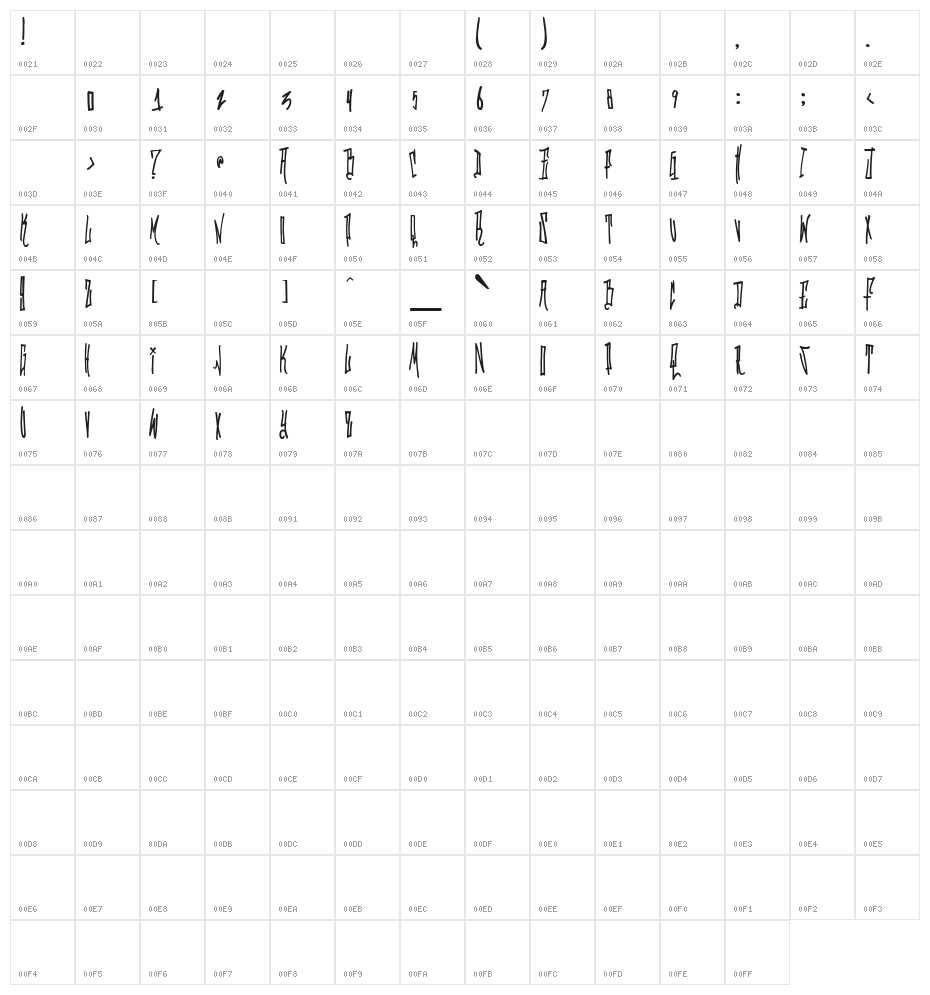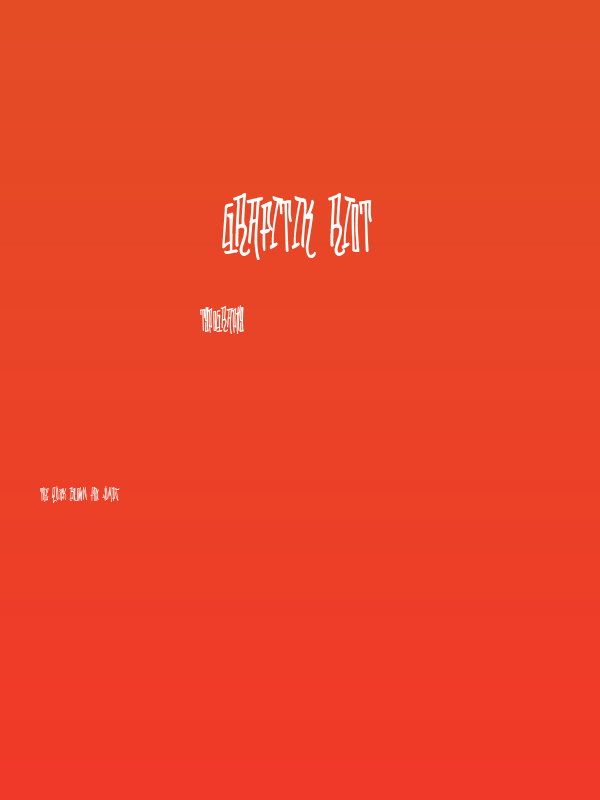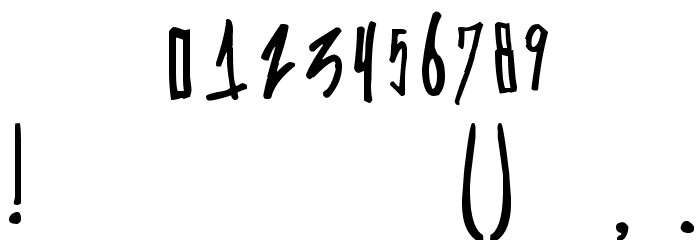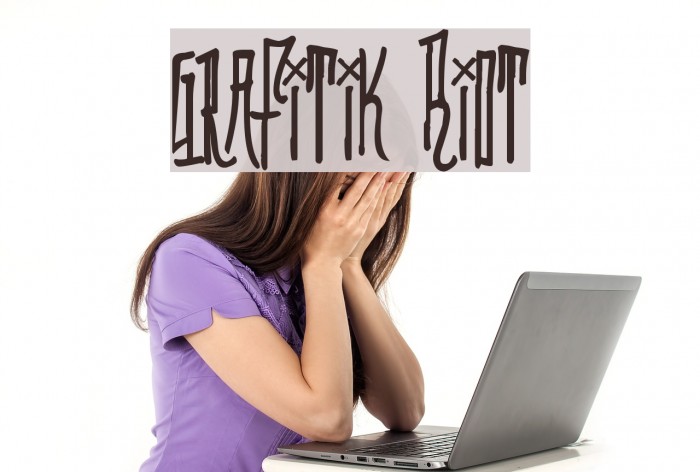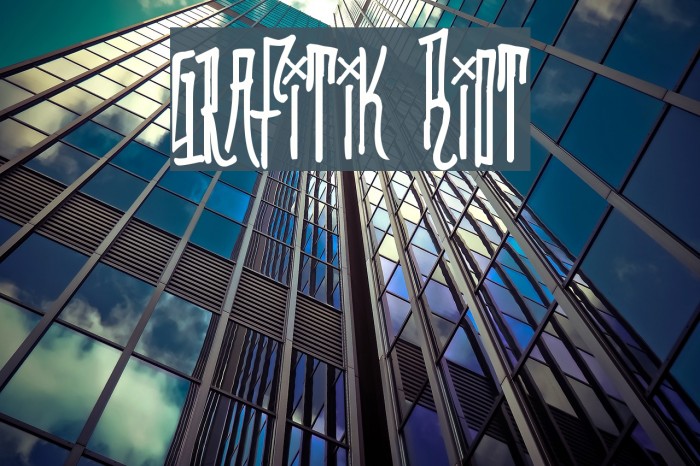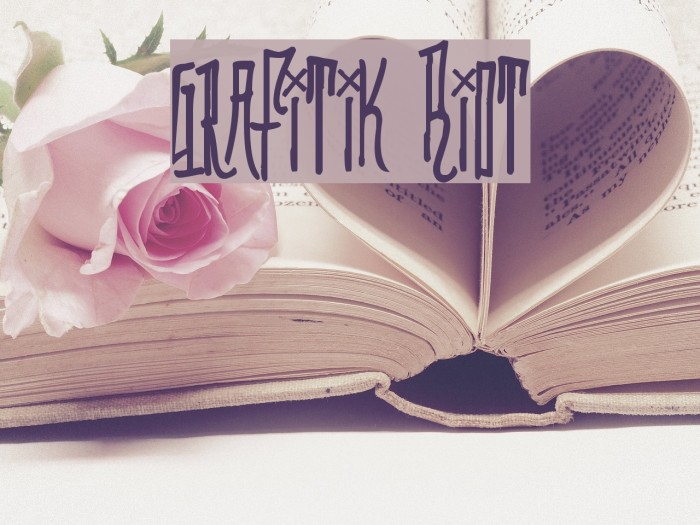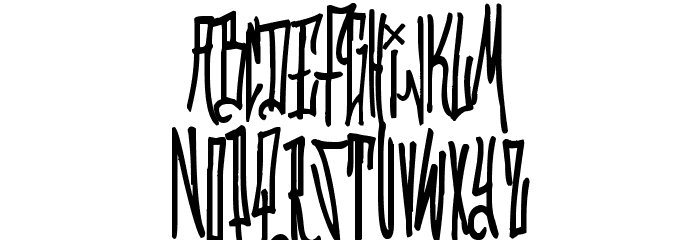
Grafitik Riot Font
Grafitik Riot Description
This font exudes a rebellious and urban aesthetic, reminiscent of graffiti art found in cityscapes. The characters are elongated and angular, with a dynamic and energetic flow that captures the essence of street art. The uppercase letters are bold and commanding, while the lowercase letters maintain the same edgy style with slightly less height. Numbers are uniquely styled to match the overall theme, and special characters are creatively integrated, adding to the font's versatility. This font is perfect for projects that aim to convey a sense of boldness and creativity.
GRAFITIK-RIOT UPPERCASE
GRAFITIK-RIOT LOWERCASE
GRAFITIK-RIOT OTHER CHARS
| Overall Style | Urban, Rebellious, Artistic |
| Proposed Projects | Ideal for street art designs, urban-themed posters, edgy branding, and music album covers. |